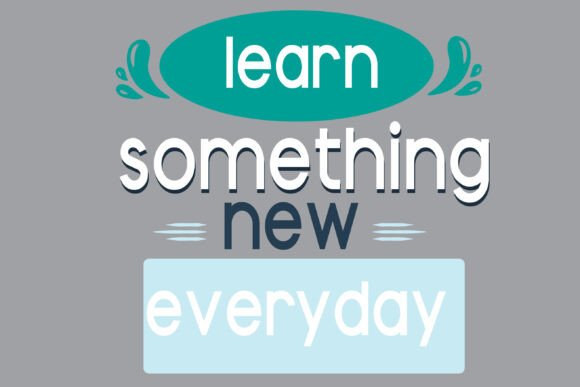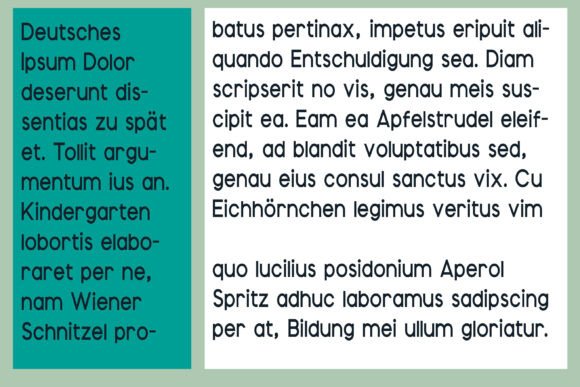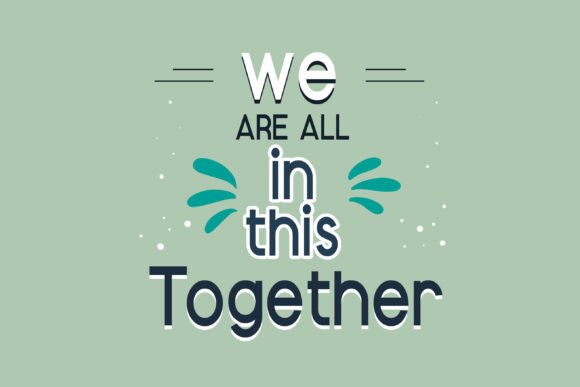
Introduction to Quadrillion Font
Have you ever been working on a creative project, pouring your heart and soul into every detail, only to be held back by the perfect font to match your vision? I know I have. As a designer, I’ve spent countless hours scouring through design resources, searching for that elusive font that will elevate my work to the next level. And then, I stumbled upon the Quadrillion Font – a game-changing, hand-crafted sans serif that has revolutionized the way I approach typography.
What sets Quadrillion Font apart is its unique, squatty design that exudes modernity and sophistication. With its bold and light versions, this versatile font is perfect for a wide range of creative projects, from invitations and greeting cards to digital designs and publications. Whether you’re looking for a high-quality design resource or simply want to add a personal touch to your work, Quadrillion Font is an invaluable asset that will take your projects to new heights.
Key Features of Quadrillion Font
- High-quality design resource with a unique, futuristic aesthetic
Honest Review: Quadrillion Font
As a designer, I’m always on the lookout for high-quality design resources to elevate my creative projects. The Quadrillion Font is one such resource that caught my attention recently. Let’s dive into my honest review of this font.
- ✨ The font’s futuristic and modern design aesthetic is perfect for futuristic and sci-fi themed projects.
- ⚠️ The font’s range of styles and weights is limited, which might not be ideal for projects requiring multiple font variations.
Overall, I’m impressed with the Quadrillion Font’s high quality and modern design aesthetic. While it may have some limitations, it’s still a great addition to any designer’s toolkit, especially for free. I’d definitely recommend it for creative projects requiring a futuristic touch.
Quadrillion Font
The Quadrillion Font is a high-quality, free design resource ideal for creative projects that require a unique touch. This font features a transparent background, making it easy to integrate into your design.
The Quadrillion Font is ideal for creative projects such as logo design, branding, and marketing materials. Its unique design and transparent background make it a versatile design resource for any project.
Alternatives to Quadrillion Font
Montserrat is a popular, high-quality sans-serif font designed for digital use. It’s ideal for creative projects that require a modern, clean look. You can use Montserrat for a wide range of applications, from logos to website headers, and it works well with a transparent background.
Montserrat is a more versatile font compared to Quadrillion Font, offering a wider range of styles and weights. While Quadrillion Font is a unique, futuristic font, Montserrat is a more timeless choice that suits various design needs.
Is Quadrillion Font a high-quality font?
Yes, Quadrillion Font is a high-quality font designed to meet the needs of designers working on creative projects. It features a unique and elegant design style, making it perfect for use in logos, branding, and other design elements.